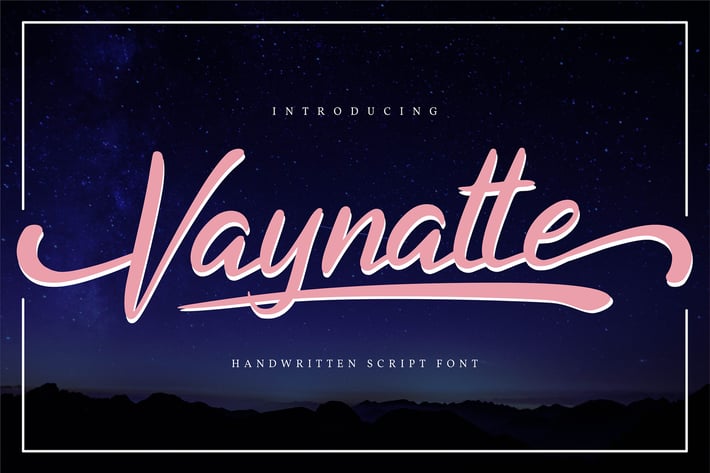
Vaynatte | Handwritten Script Font
Vaynatte | Handwritten Script Font with a calligraphy style, So beautiful on invitation like greeting cards, branding materials, business cards, quotes, posters, and more!